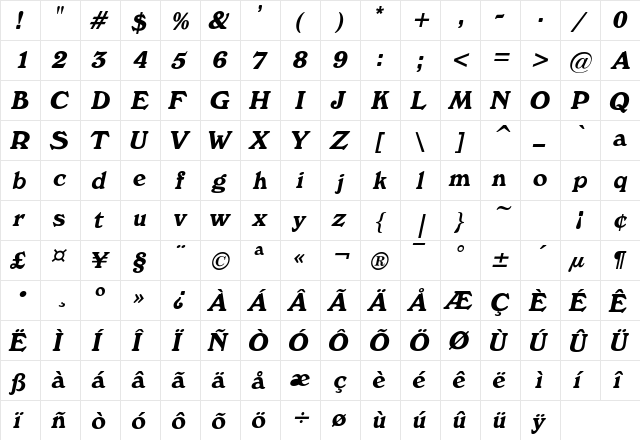
Buckingham Italic
Design Context for Buckingham Typeface
Buckingham takes a measured approach to typography — its balanced proportions and neutral character make it a reliable workhorse for both digital and print work. Its italic angle brings a sense of urgency and motion to the letterforms.